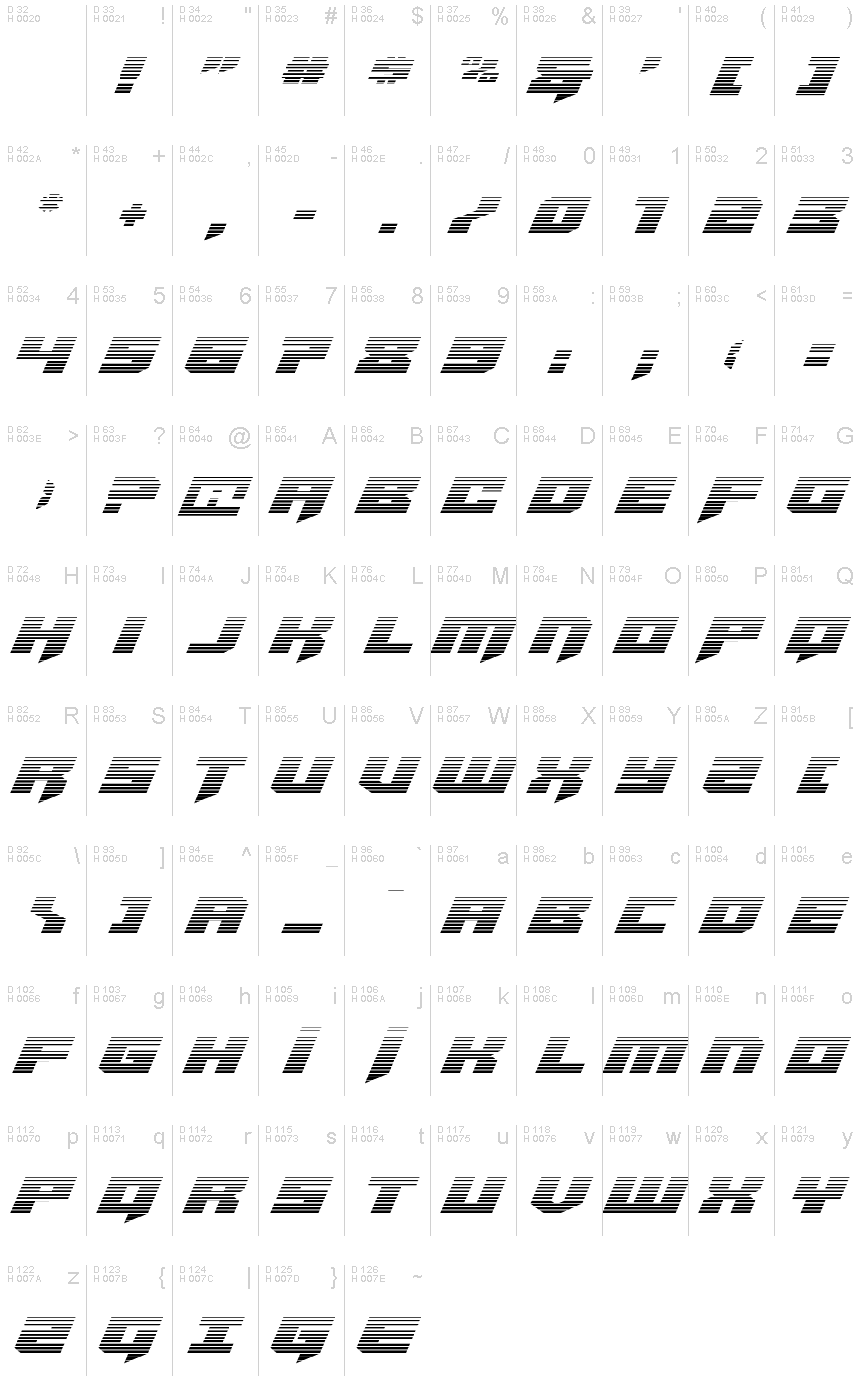
Bridge OFFicer Gradient
Bridge Officer Gradient, a standout addition to the Bridge Officer font family by Iconian Fonts, embodies a futuristic strength with its extra-bold weight and extra-expanded width. This display type font exudes a techno style that feels at home in any modern or science fiction-themed project. Its assertive lines and gradient patterns give it a dynamic three-dimensional appearance that seems to leap off the page.
The aesthetic appeal of Bridge Officer Gradient lies in its bold structure, making it ideal for titles, headers, and any design where you want the text to make a powerful impact. The gradient effect adds depth and sophistication, suggesting movement and energy which can effectively draw the viewer's attention.
Undoubtedly versatile for various creative endeavors, this font could be the go-to choice for branding projects, event posters, gaming interfaces, or tech-startup presentations. Its clean lines maintain readability while adding an edgy personality to your designs. Whether you're aiming for sleek advertising or engaging multimedia content, Bridge Officer Gradient carries the potential to elevate your creative vision with its distinctive techno vibe.